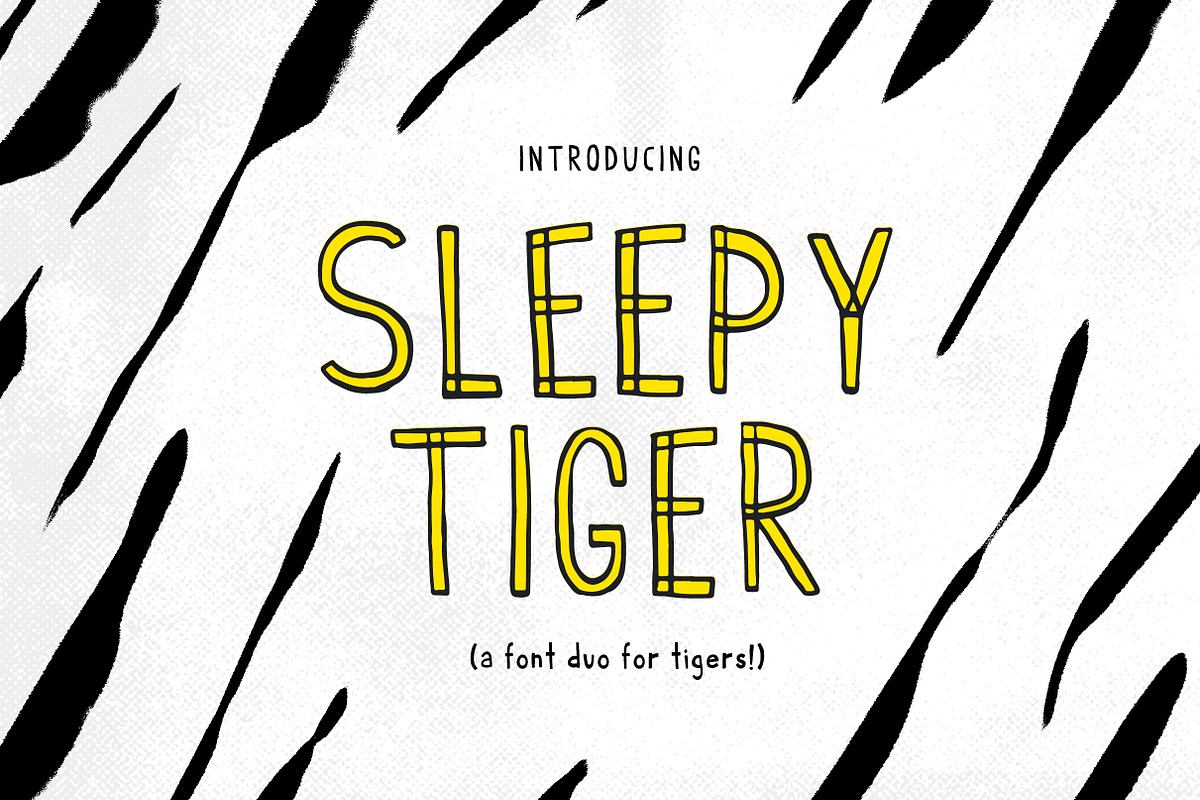
Sleepy Tiger - Font Duo Free Download
Sleepy Tiger – Font Duo Free Download
Sleepy Tiger – Font Duo Free Download is a playful and creative typeface pairing that includes a quirky handwritten script and a bold, fun display font. This duo is perfect for children’s books, cute branding, product packaging, greeting cards, social media content, and any design that needs a lively, whimsical touch.
The handwritten script adds a personal, casual flair, while the display font offers boldness and charm—making Sleepy Tiger – Font Duo Free Download ideal for combining styles while maintaining a cohesive look. Use them together or separately to craft friendly, approachable designs full of character.